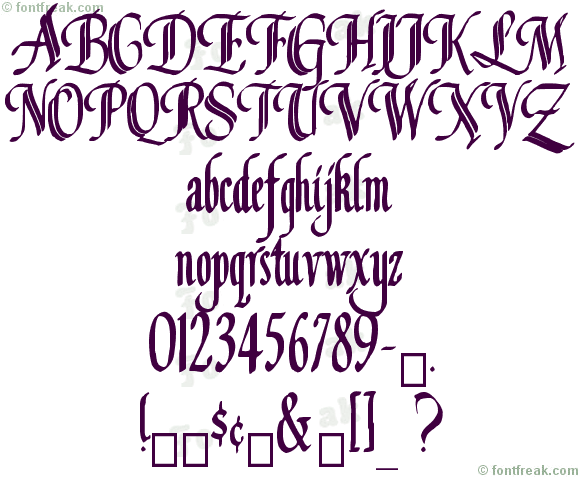
Louvaine
About Louvaine
Louvaine, designed by Paul Lloyd, is a captivating display font that beautifully merges elegance with modern sensibilities. This font falls into the category of decorative serif typefaces, characterized by its distinctive stroke weight and contrasting lines that evoke a sense of sophistication. The letters feature graceful curves and sharp points, creating a dynamic visual appeal. The ample spacing between characters enhances readability while maintaining a striking presence, making Louvaine an excellent choice for various design applications.
Ideal for wedding invitations, Louvaine adds a romantic touch that elevates the overall aesthetic. Its unique style also makes it suitable for movie posters, where it can draw attention and convey a sense of drama. Restaurant menus benefit from Louvaine’s refined look, inviting diners to savor the charm of the dining experience. Additionally, it works well in branding materials for boutique businesses, helping to establish a memorable identity.
The target audience for Louvaine includes graphic designers, small business owners, and content creators who seek to make an impactful statement through typography. Whether creating marketing collateral or personal projects, this font provides versatility and flair that resonates with a creative audience.
What truly sets Louvaine apart is its ability to balance elegance with approachability. Its decorative elements invite curiosity without overwhelming the viewer, making it a standout choice for anyone looking to enhance their designs. With its freeware licensing, the Louvaine font free download offers an accessible option for creatives eager to explore its potential. Embrace the charm of Louvaine and let it transform your projects into visually stunning works of art.